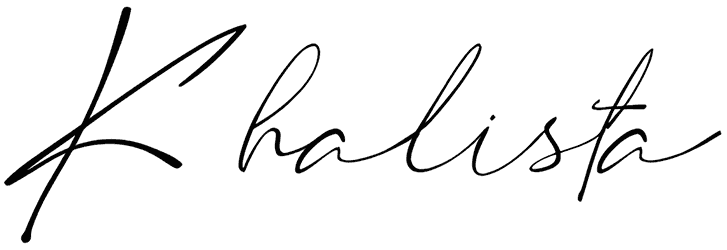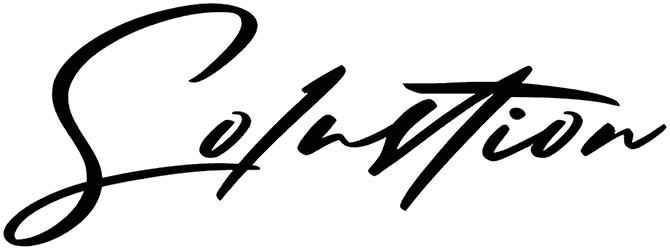
Hartman Smith Font
Do you want to catch your reader’s eye and add personality and emotion to your project? So try Hartman Smith. This signature font offers you two amazing styles as an investment to take your projects to the next level.
This modern script font has thin and slightly illegible lines that increase its feel and make it more suitable for business names, invitations, and greeting cards.
Designed by: Perspectype Studio